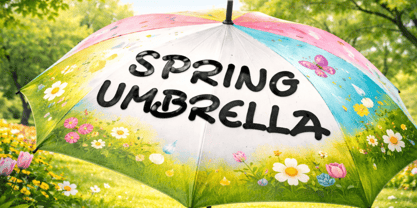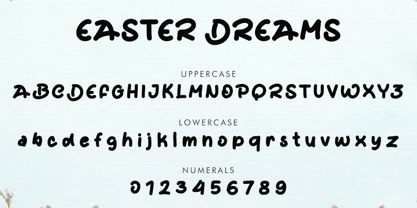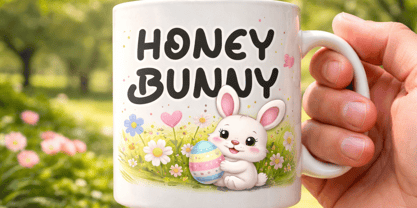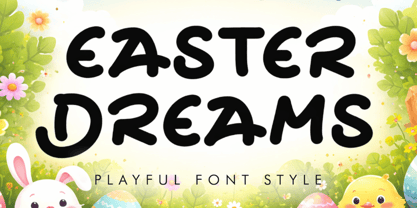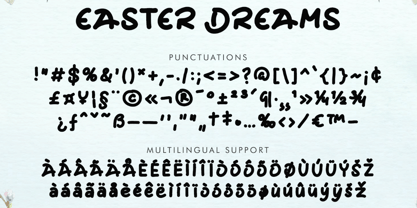
Easter Dreams
by Yoga Letter
The Easter Dreams Font Family was designed by Isroni Yoga Prasetya and published by Yoga Letter. Easter Dreams contains 1 styles. More about this family
"Easter Dreams" is a unique and elegant display font. It features uppercase and lowercase letters, numerals, punctuations, and multilingual support. It's perfect for summer, spring, Easter, vacations, holidays, back to school, Christmas, Halloween, banners, posters, logos, patriotic prints, branding, Mother's Day, Patrick's Day, Teacher's Day, and more.